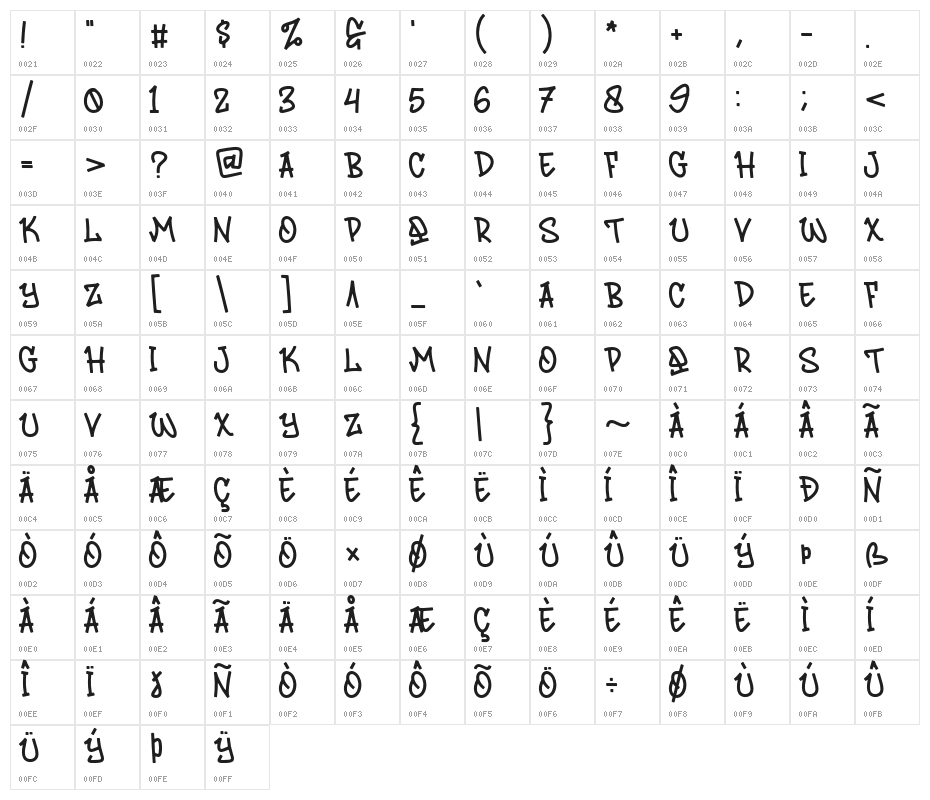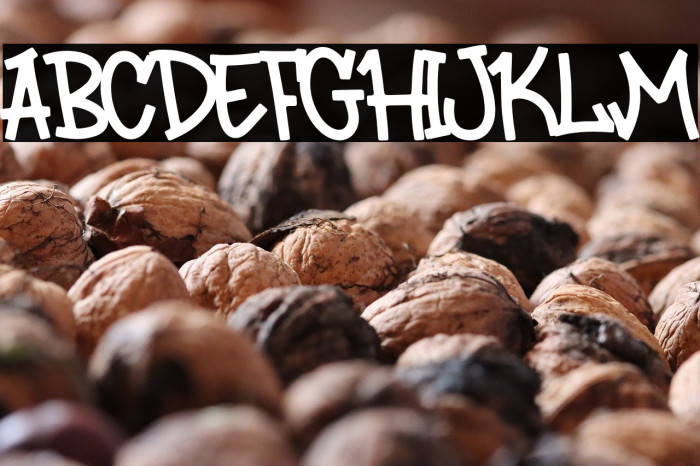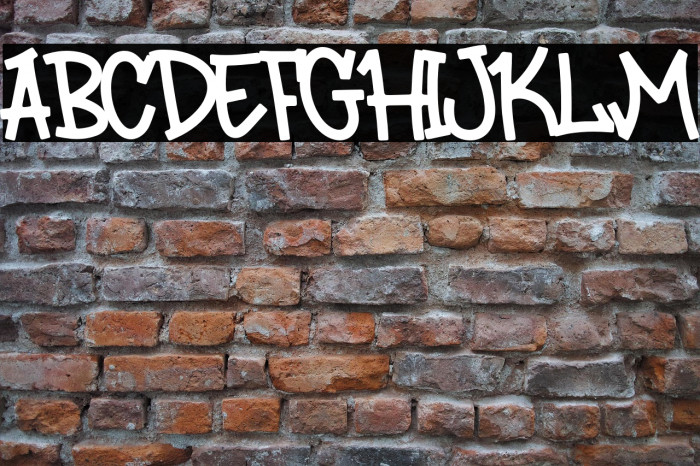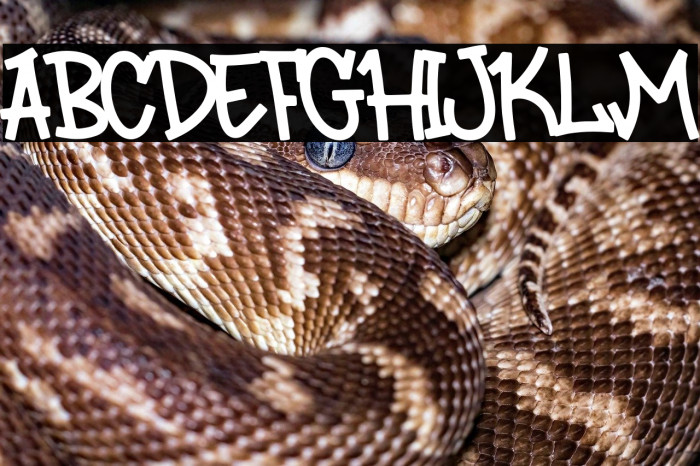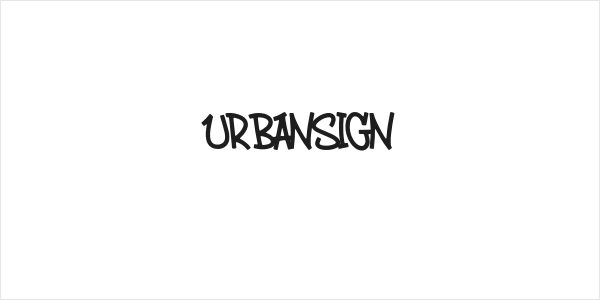
UrbanSign Font
UrbanSign Description
This font exudes a bold, urban aesthetic with its graffiti-inspired design. The characters are dynamic and energetic, featuring thick strokes and a playful, hand-drawn style. The uppercase and lowercase letters maintain a consistent flow, while the numbers and special characters add to the overall street art vibe. The font's unique character shapes and exaggerated curves make it stand out, perfect for projects that require a touch of edginess and creativity.
| Overall Style | Urban, Graffiti, Playful |
| Proposed Projects | Ideal for street art projects, urban-themed posters, music album covers, and edgy branding materials. |